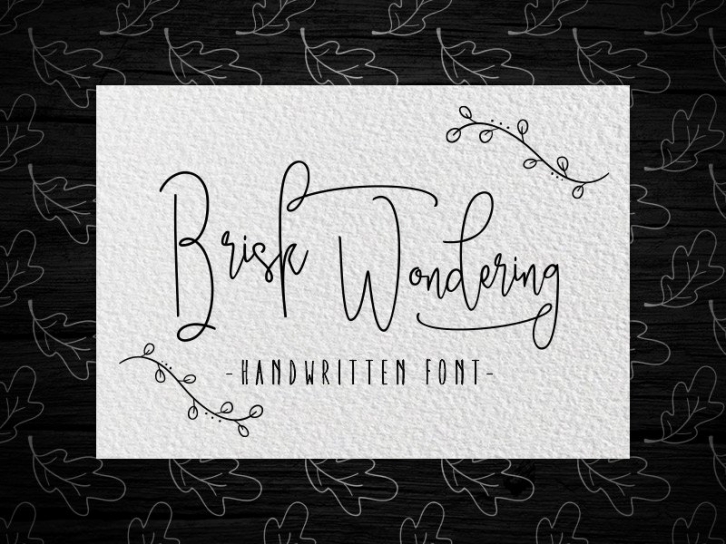
Introducing one of the best so beautiful and comes with two very elegant fonts that are designed to compliment each other perfectly.
Brisk wondering is an elegant handwritten font that comes with beautiful swashes and curly lines. Because of the range of characters you can make every project personal and customized, it also allows you to use this font over and over again as you can make it look completely different every time you use it!
Brisk wondering : A script that is so beautiful with gorgeous grounds, and furnished with fine lines are perfect for use ntuk many purposes. such as title, signature, logo, correspondence, wedding invitations, letterhead, signage, labels, newsletters, posters, badges, Branding, Greeting Cards, etc. It comes with a handy set of OpenType Contextual Alternates, Stylistic Alternates, stylistic sets, ligatures and swashes and all to add an authentic touch to your design. Brisk wondering features 602 glyphs and This is all the code with Unicode PUA - allows people who do not have the software to access specific glyph alternately too :) - Mac users can use Font Book, and Windows users can use the Character Map to view and copy one additional character to paste into your a text editor / favorite applications.
Brisk wondering Boll : This font contains 450 Glyphs and characters which makes it very versatile and usable for any type of project. The because of the high number of characters you can easily re-use this font over and over again and still come up with an original design every time. The font has PUA encoding which means it is accessible in all applications using Windows Character Map & Font Book.
Fonts bonus Willshering sans : is a simple and clean font drawn by hand. The beautiful straight letters will look great on invites and cards.
The Features of this fonts is: Contextual Alternates, Standart ligatures, Stylistic Alternates, Stylistic Sets, end swashes.